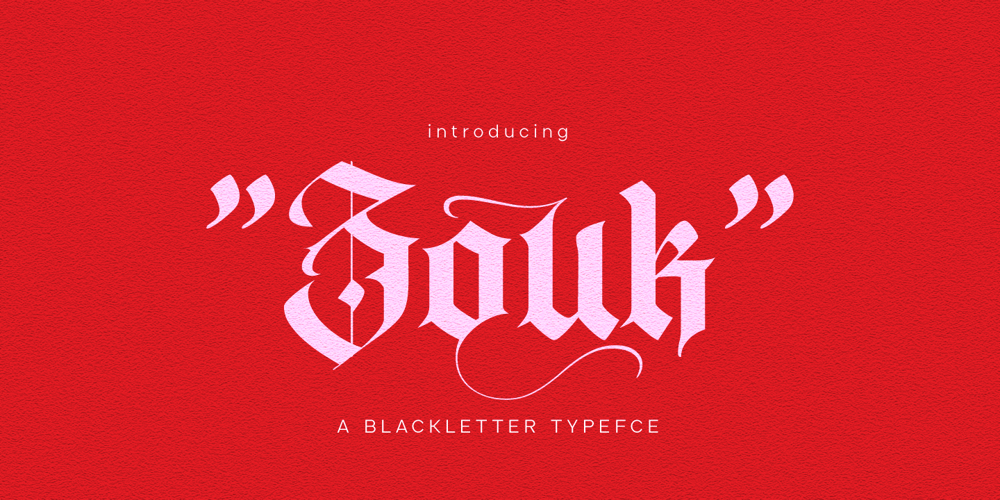
Zouk
Zouk font
Zouk Font Family was designed by Muhammad Ridha Agusni and published by 38-lineart. Zouk contains 1 styles and family package options. “Zouk” is the transformation of the classic blackletter font into the modern world. The blackletter character is very strong and prominent will be the choice for a new style brand.This font consists of 750 glyphs with latin plus diacritics that supports more than 200 languages. We created alternate glyphs in stylistic sets (SS) 01, 02, 03 and 04 for all lowercases including the diacritics.We believe this font style will be a new brand choice that is more prominent and stylish in a classic nostalgic diorama.